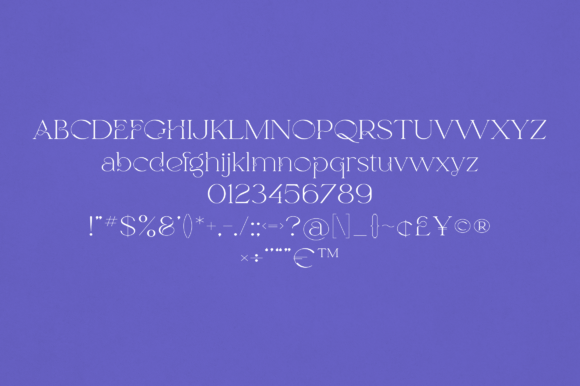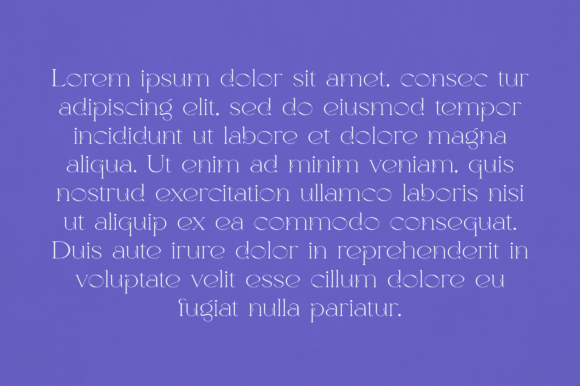
Averly Font: Elevate Your Typography with Elegance and Versatility
In the world of design, typography plays a crucial role in conveying messages, expressing creativity, and establishing brand identity. Among the numerous fonts available, Averly Font stands out as a sophisticated and adaptable choice, capable of transforming your designs into unique masterpieces. In this article, we’ll explore the features, benefits, and applications of Averly Font, and why it’s becoming a favorite among designers and crafters.
What is Averly Font?
Averly Font is an elegant and versatile typeface designed to add a touch of sophistication to various design projects. Its refined lines, balanced proportions, and luxurious feel make it an ideal choice for creating stunning typography. Whether you’re working on a logo, branding, headline, or plain text, Averly Font is sure to enchant your audience.
Key Features of Averly Font
- Elegant and Versatile: Averly Font boasts a classic yet modern design, allowing it to seamlessly integrate into a wide range of projects, from traditional to contemporary.
- Unique Typography: With its distinctive character set, Averly Font enables you to create truly unique typography that sets your designs apart from the rest.
- Highly Readable: The font’s clear and balanced design ensures excellent readability, making it suitable for both headings and body text.
Applications of Averly Font
Averly Font’s versatility makes it an excellent choice for various design projects, including:
- Branding Projects: Establish a strong brand identity with Averly Font’s elegant and sophisticated typography.
- Home-ware Designs: Add a touch of luxury to your home-ware designs, such as product packaging, labels, and advertisements.
- Product Packaging: Make your products stand out with Averly Font’s unique and eye-catching typography.
- Magazine Headers: Create stunning magazine headers that grab attention and set the tone for your content.
- Text Overlay: Use Averly Font as a stylish text overlay to add depth and context to your background images.
Benefits of Using Averly Font
By incorporating Averly Font into your design projects, you can:
- Enhance Brand Identity: Averly Font’s unique and elegant design helps establish a strong brand presence.
- Increase Readability: The font’s clear and balanced design ensures that your message is conveyed effectively.
- Boost Creativity: Averly Font’s versatility and sophistication inspire creativity and experimentation in your designs.
Tips for Using Averly Font
To get the most out of Averly Font, consider the following tips:
- Experiment with Font Sizes: Averly Font looks great in various sizes, from large headings to smaller body text.
- Play with Colors: Try different color combinations to find the perfect match for your design.
- Mix and Match: Combine Averly Font with other fonts to create a unique and visually appealing typography.
Averly Font is an exceptional choice for designers and crafters seeking to elevate their typography with elegance and versatility. Its unique features, benefits, and applications make it an ideal font for various design projects. By incorporating Averly Font into your workflow, you’ll be able to create stunning typography that sets your designs apart and leaves a lasting impression on your audience.
Get Ready to Transform Your Designs with Averly Font
Whether you’re a seasoned designer or a crafty enthusiast, Averly Font is sure to inspire your creativity and take your designs to the next level. So why wait? Discover the world of possibilities with Averly Font and experience the power of elegant and versatile typography.